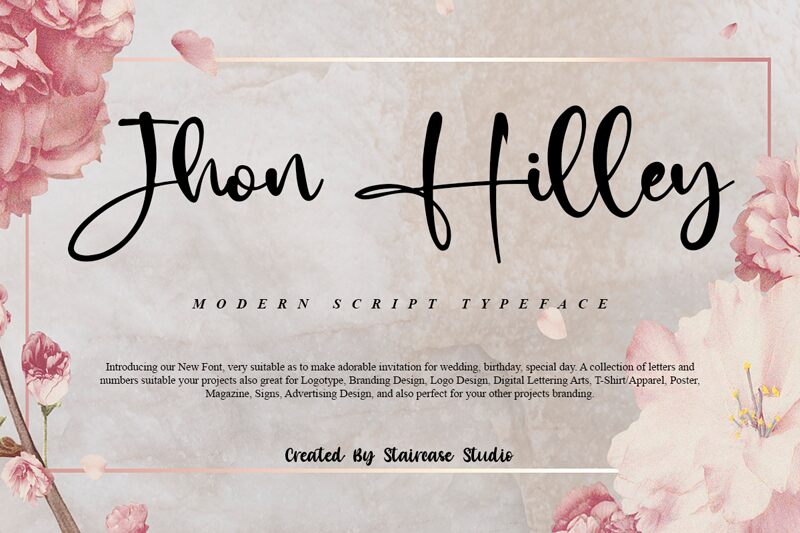
Jhon Hilley
Jhon Hilley is a beautifully crafted handwritten font designed by Staircase Studio. Its semi-light weight adds an elegant touch to any project, making it perfect for wedding invitations, greeting cards, and other special occasion designs. This font's unique style captures the essence of personal touch and human connection, making it a great choice for social media graphics, blog headers, and branding projects. Jhon Hilley is sure to elevate any design with its sophisticated yet approachable feel. Try it out on your next project and see how it brings a sense of warmth and authenticity to your work!